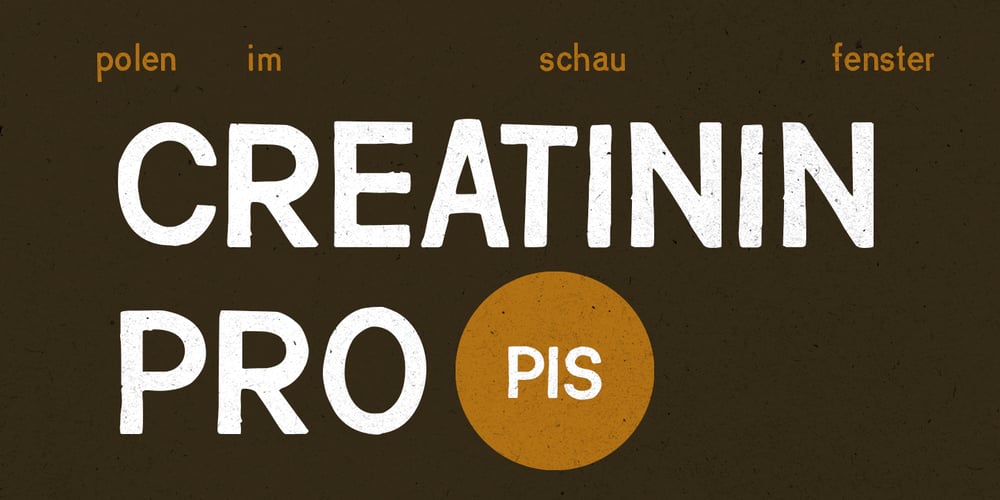
PiS Creatinin Pro Font Family was designed by Hannes Siengalewicz and published by PiS. PiS Creatinin Pro contains 1 styles and family package options. PiS Creatinin pro is based on a vintage ABC learning game for kids found in my grandparents attic. The narrow and high hand-drawn letters combine delicacy and chunkyness in a wonderful way, so it can be used both in huge display sizes and in small text sizes. PiS Creatinin pro – Makes you want to go back to school and learn the alphabet all over again!